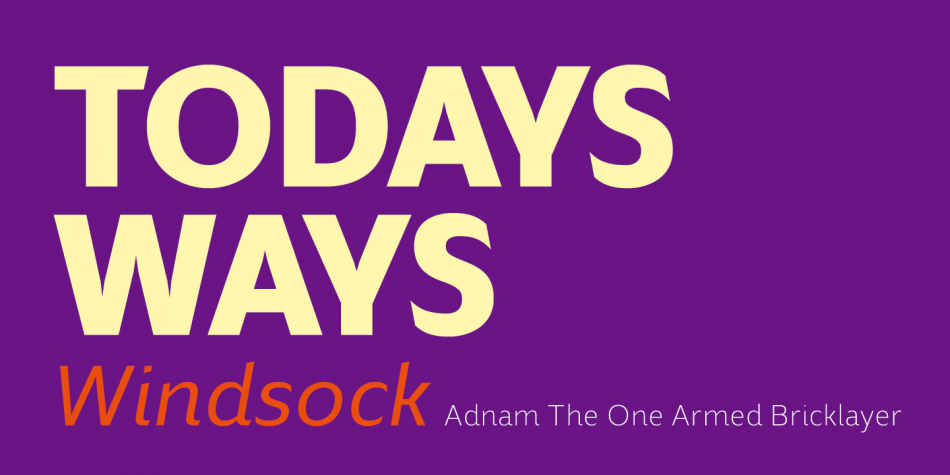
| Designed by Dusan Jelesijevic, Blond is a sans serif font family. This typeface has twenty-two styles and was published by Tour de Force Font Foundry. |
Blond is modern sans serif family with 22 members – 11 weights from Thin to Heavy with matching Italics.
Distinctive, recognizable and uniform, the Blonde family is a well balanced typeface that can be utilized in any situation – from editorial to web design.
Contains extended Latin character map ans small Stylistic set.